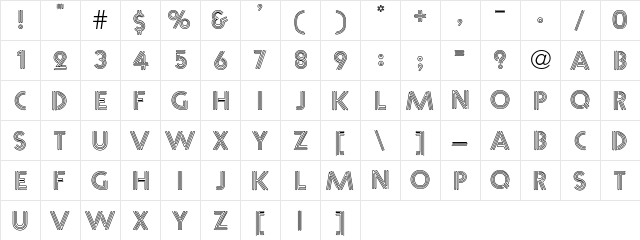
Neone- Regular
Design Context for Neone- Typeface
Neone- channels digital-age aesthetics through its sharp, structured letterforms — ideal for brands that want to signal innovation.
Pro Tip: Use Neone- in combination with a neutral sans for body text. Let it define the brand voice in headlines while keeping reading comfortable elsewhere.